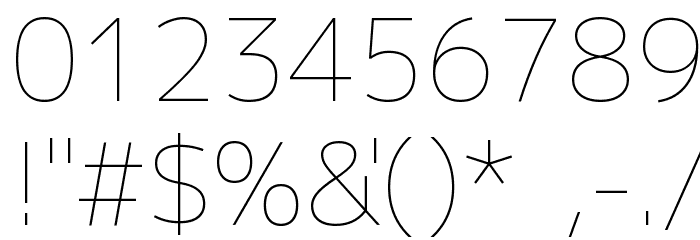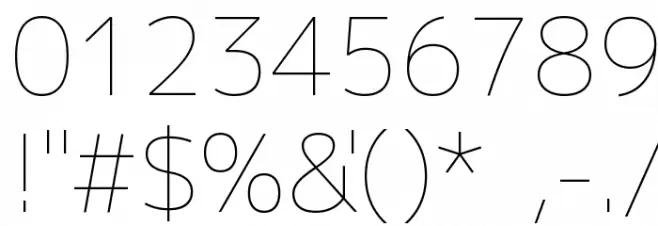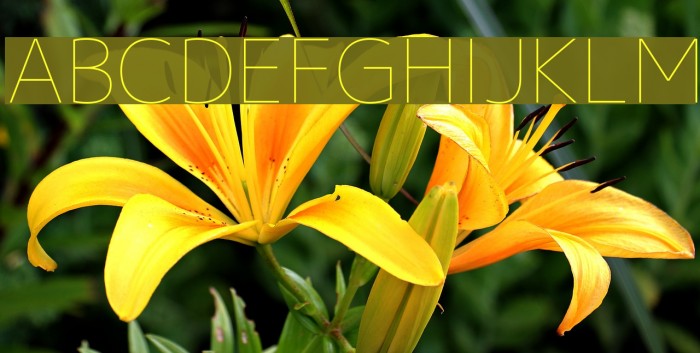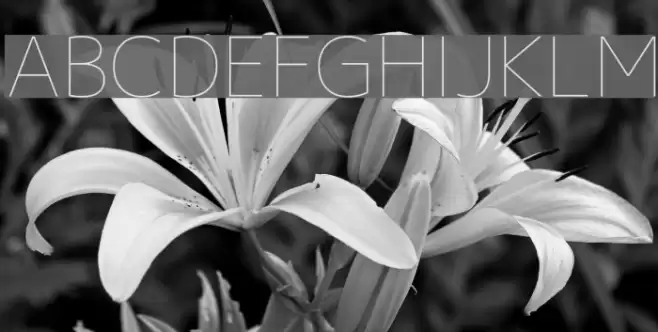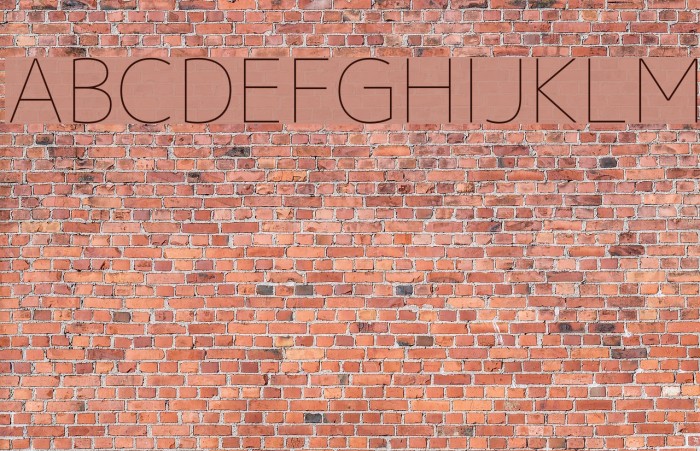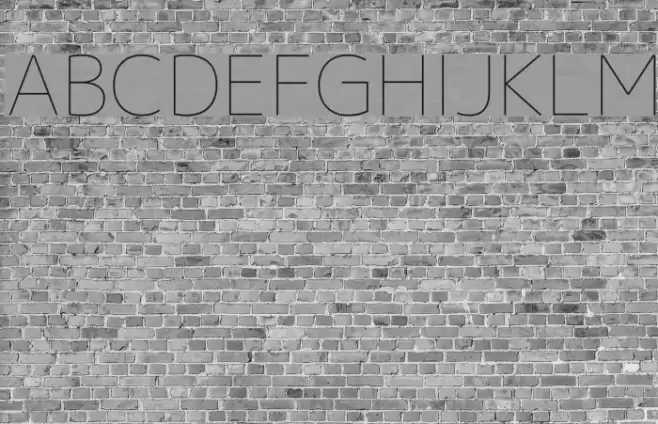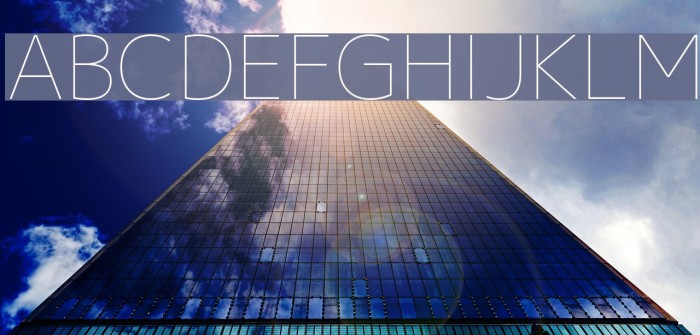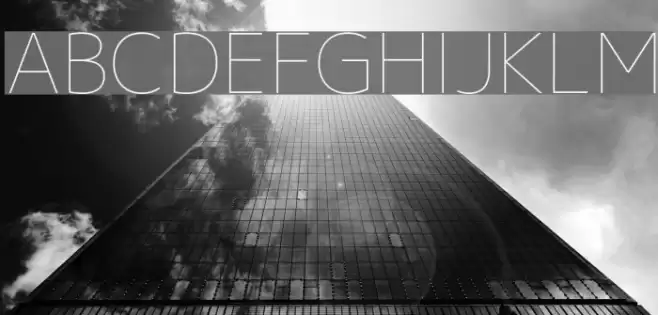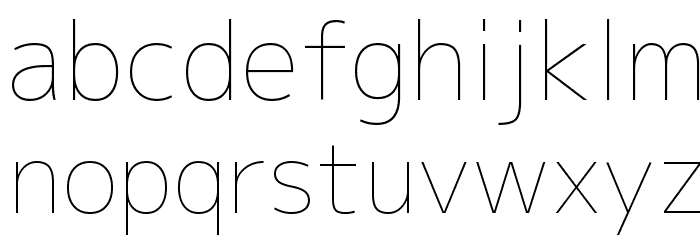
M+ 1p thin Font
M+ 1p thin Description
This font features a sleek and modern design with a minimalist aesthetic. The characters are thin and elongated, giving a sense of elegance and sophistication. The uppercase and lowercase letters maintain a consistent style, with smooth curves and clean lines. The numerals are equally refined, complementing the overall look. The special characters are well-integrated, maintaining the font's streamlined appearance. This font is ideal for projects that require a contemporary and stylish touch, such as branding, editorial design, and digital interfaces.
| Use Case | Headlines, Body text, Logos |
| Proposed Projects | Ideal for branding, editorial design, digital interfaces, and minimalist projects. |